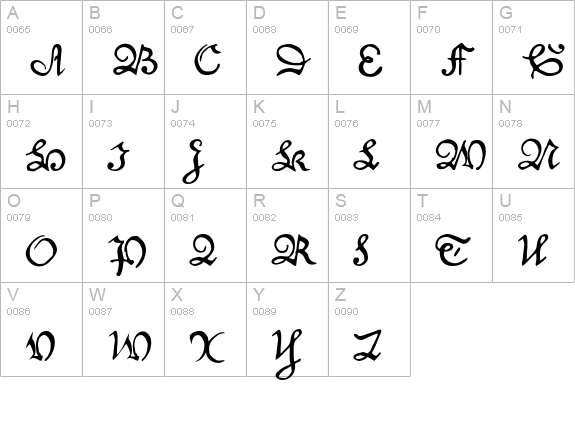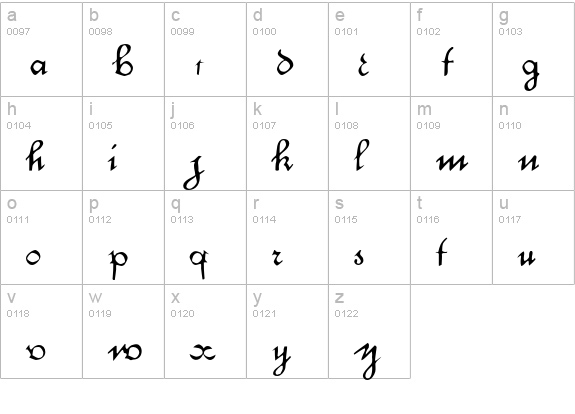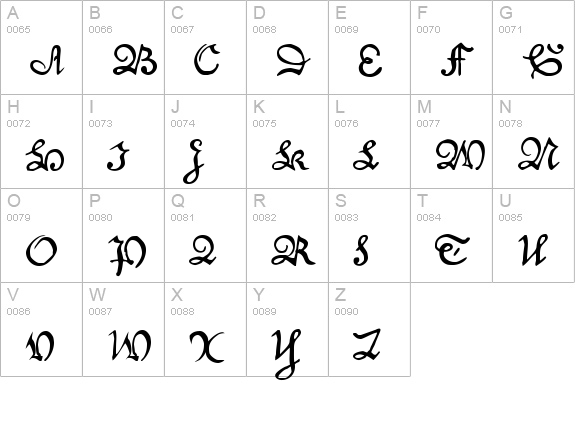
Celeste Font Details
Celeste font is a stunning display typeface that exudes elegance and sophistication. With its delicate letterforms and graceful curves, Celeste font is perfect for adding a touch of luxury to your designs. Whether used for invitations, branding, or editorial projects, this font is sure to make a statement. What makes Celeste font even more appealing is that it is free to download at FontsMarket.com. This means you can elevate your projects without breaking the bank. Don't miss out on the opportunity to enhance your designs with the timeless beauty of Celeste font. Download it today and start creating stunning visuals that will captivate your audience.